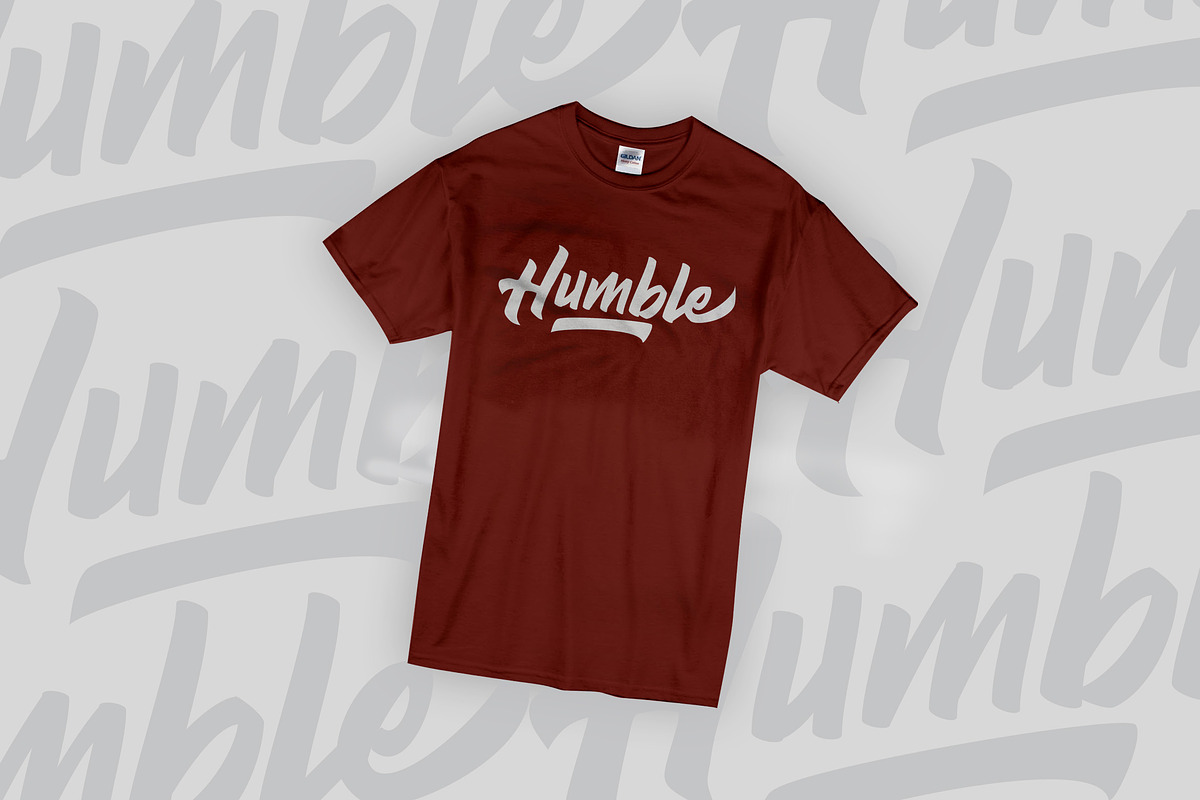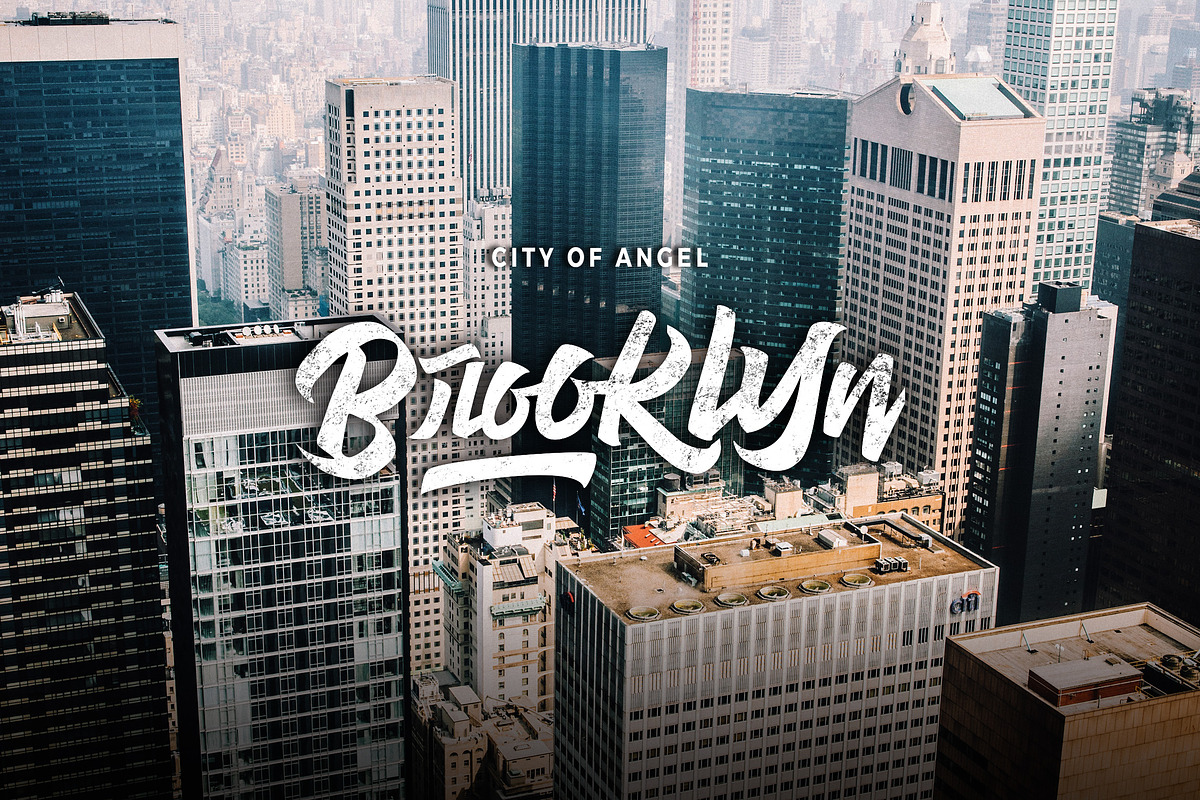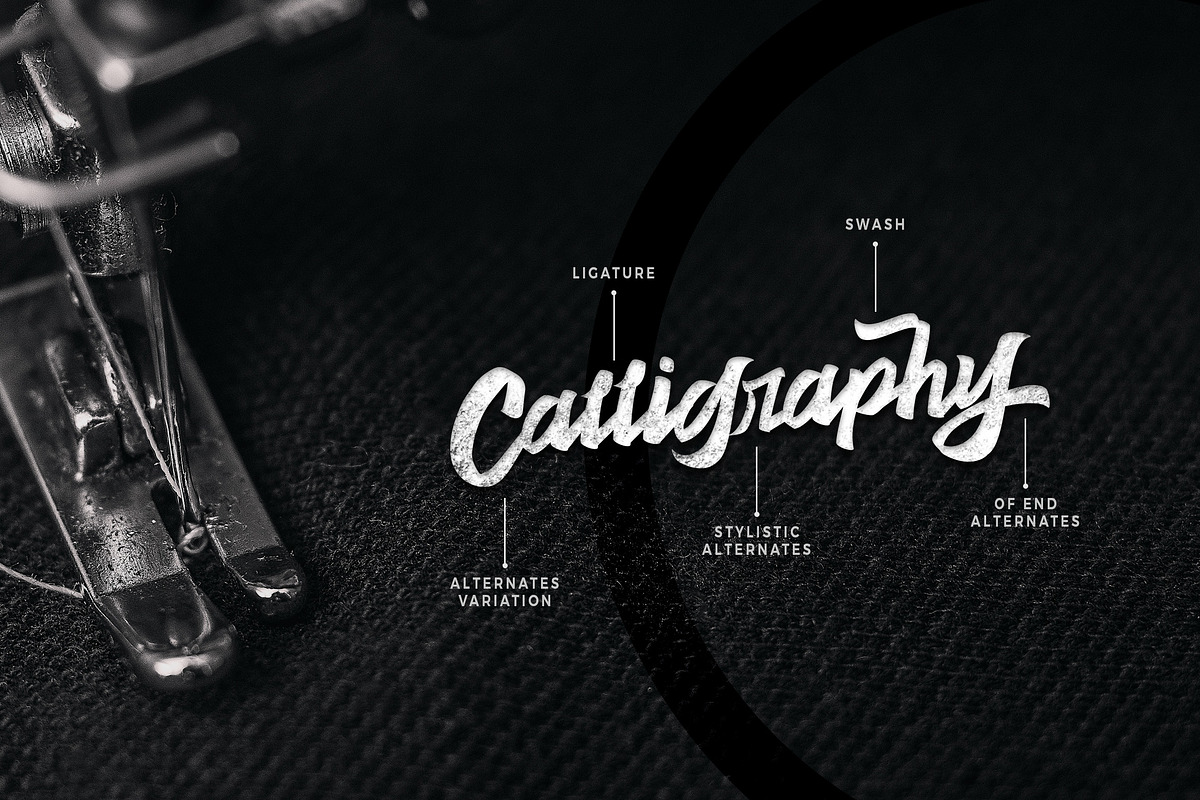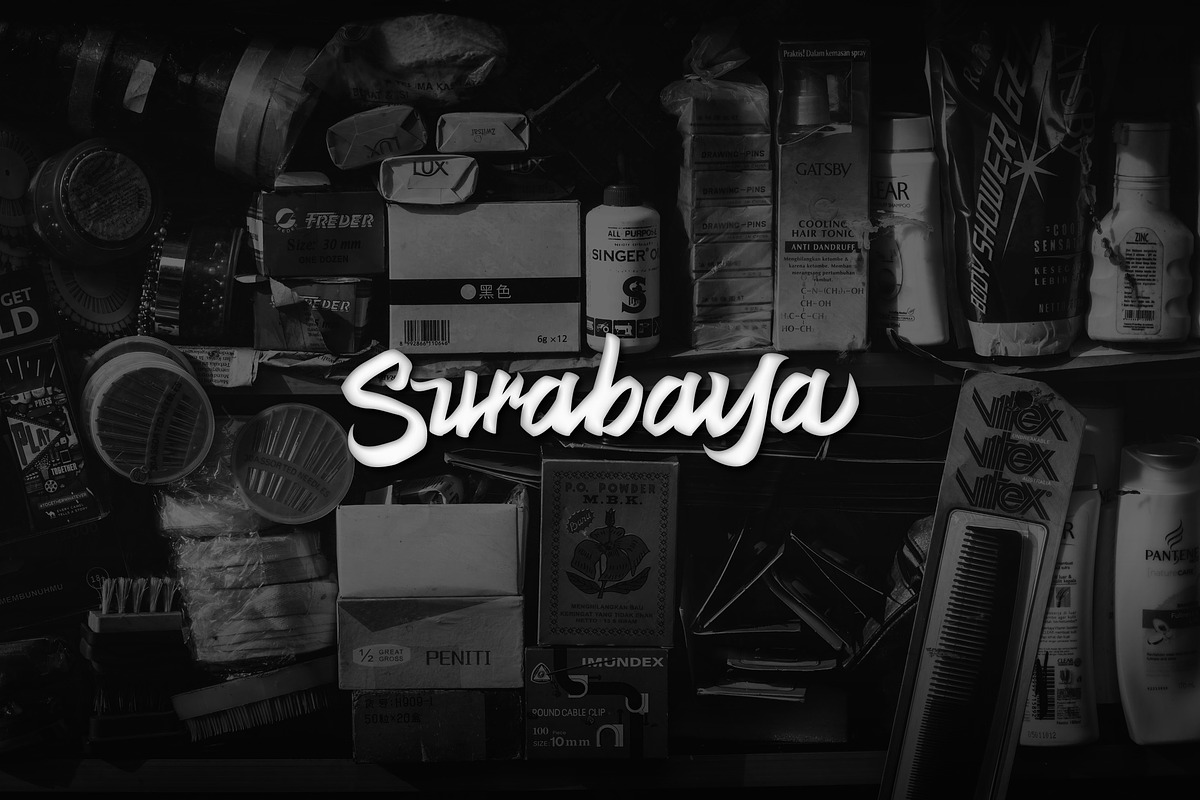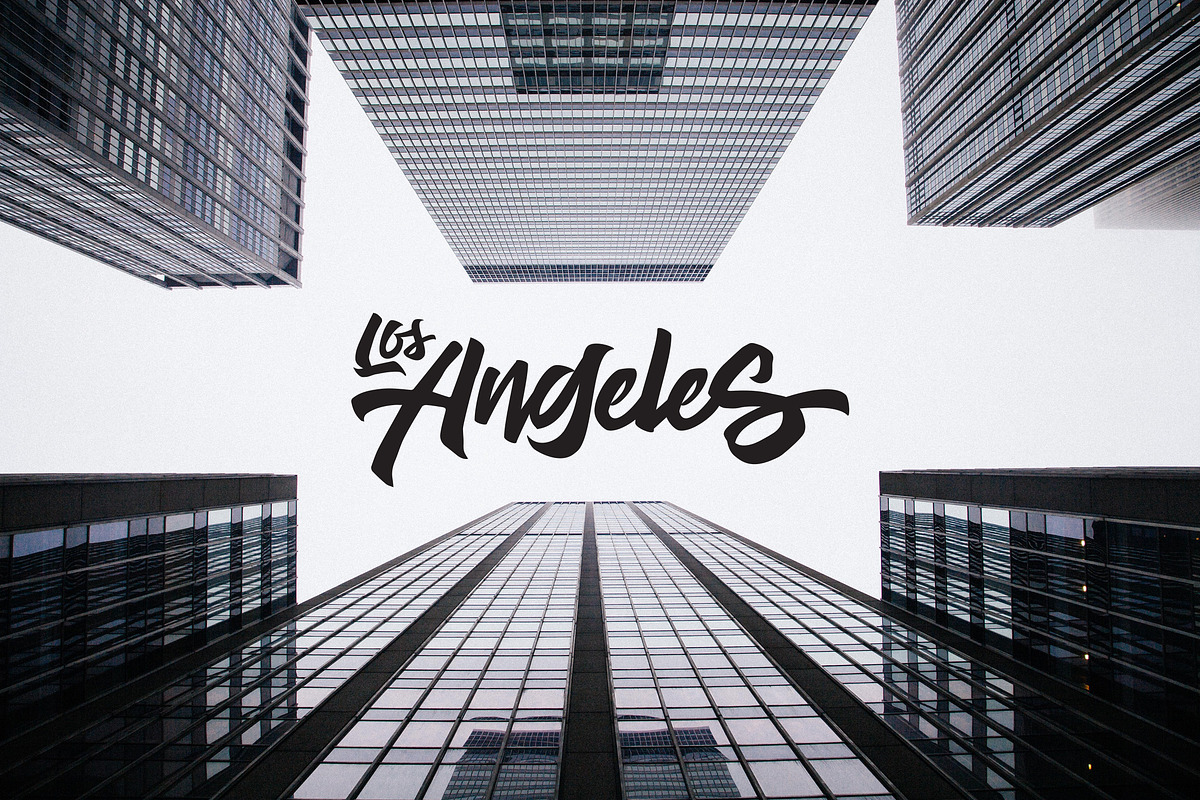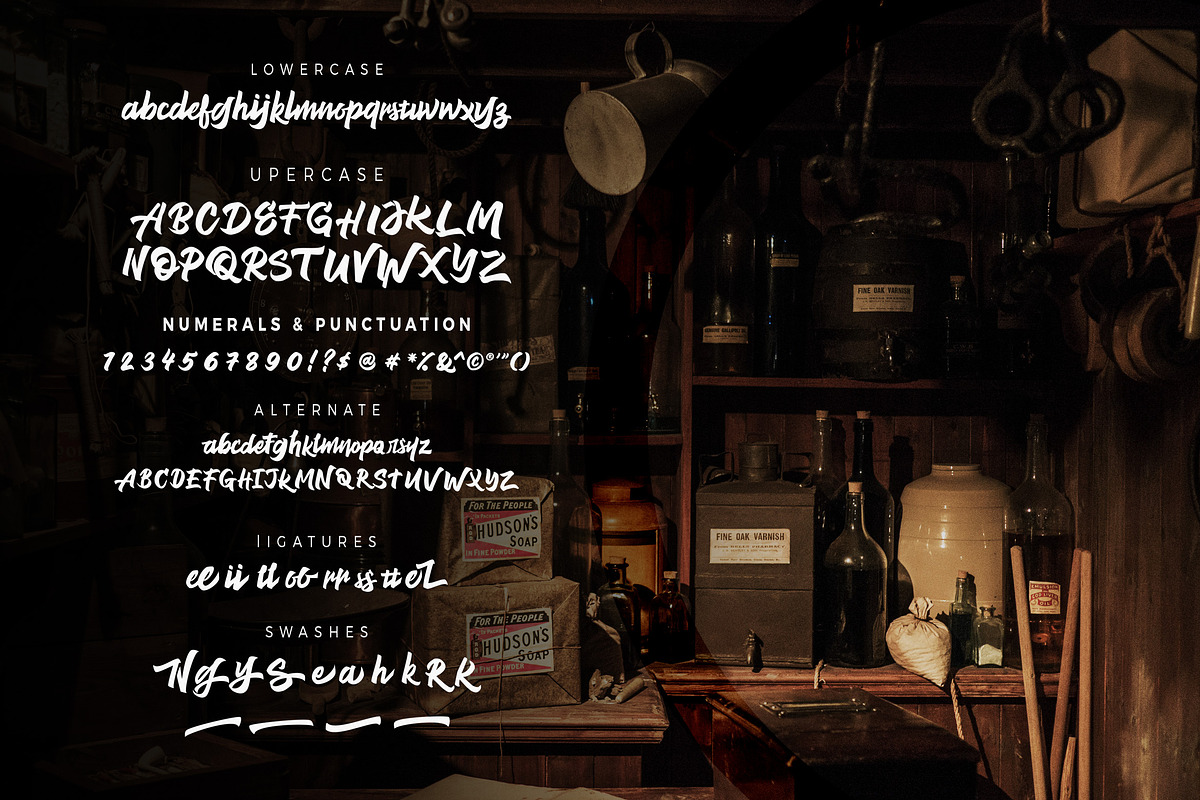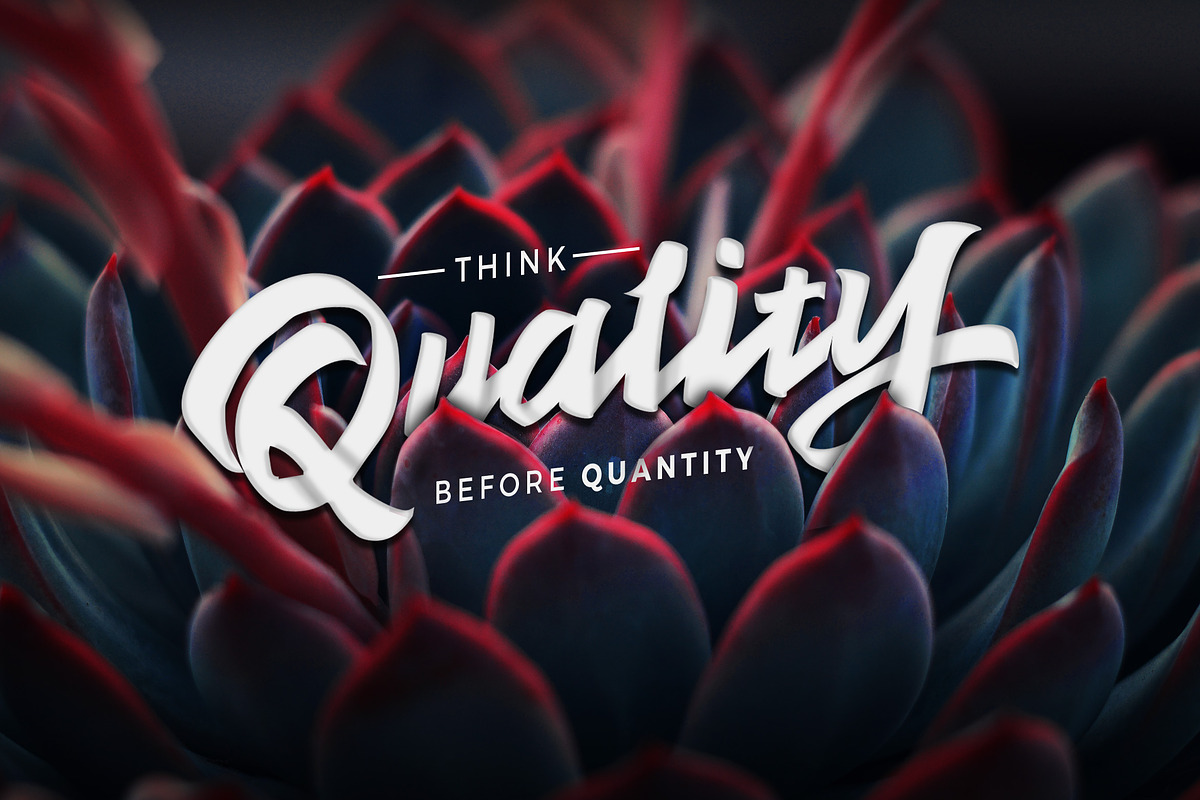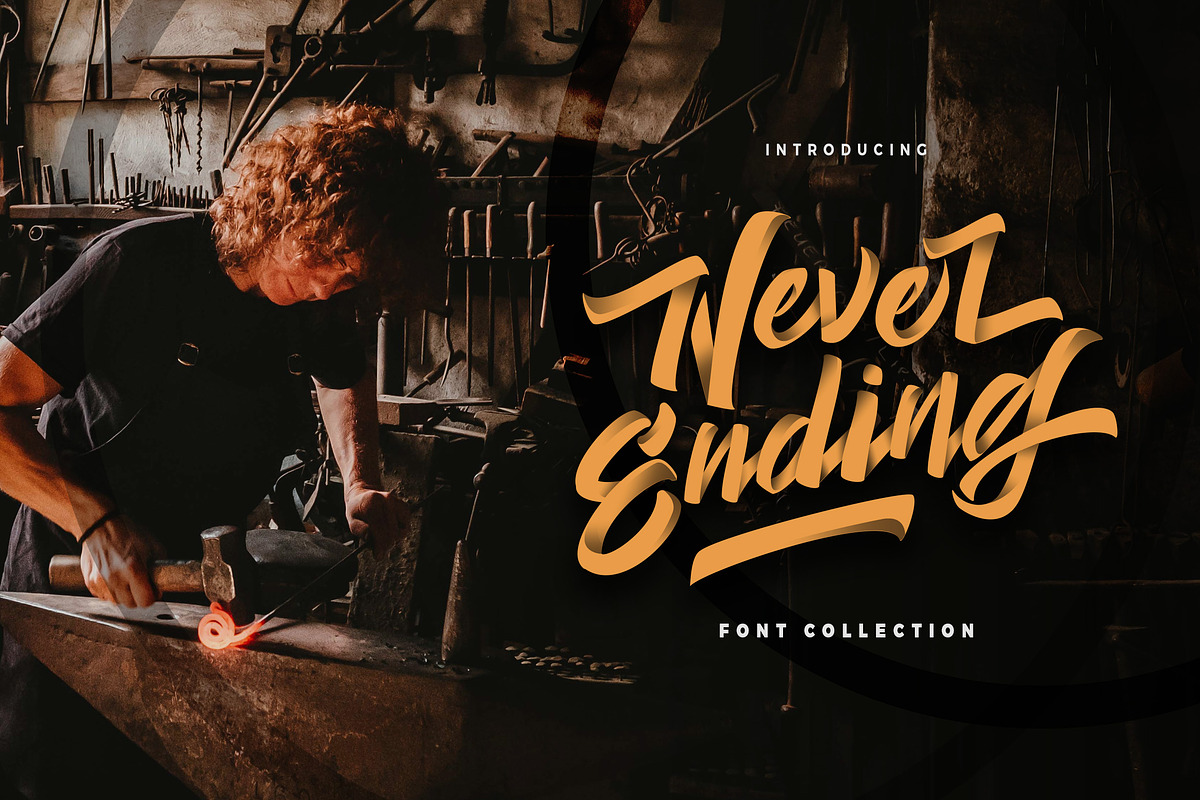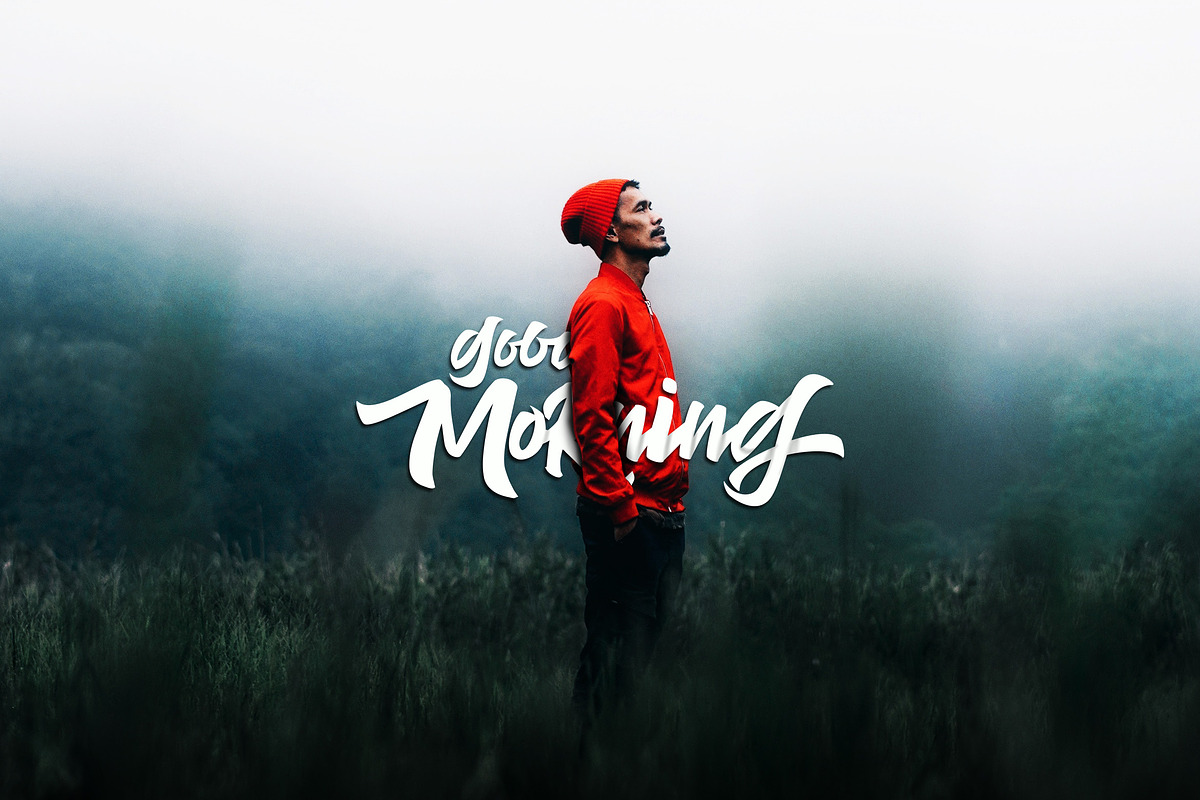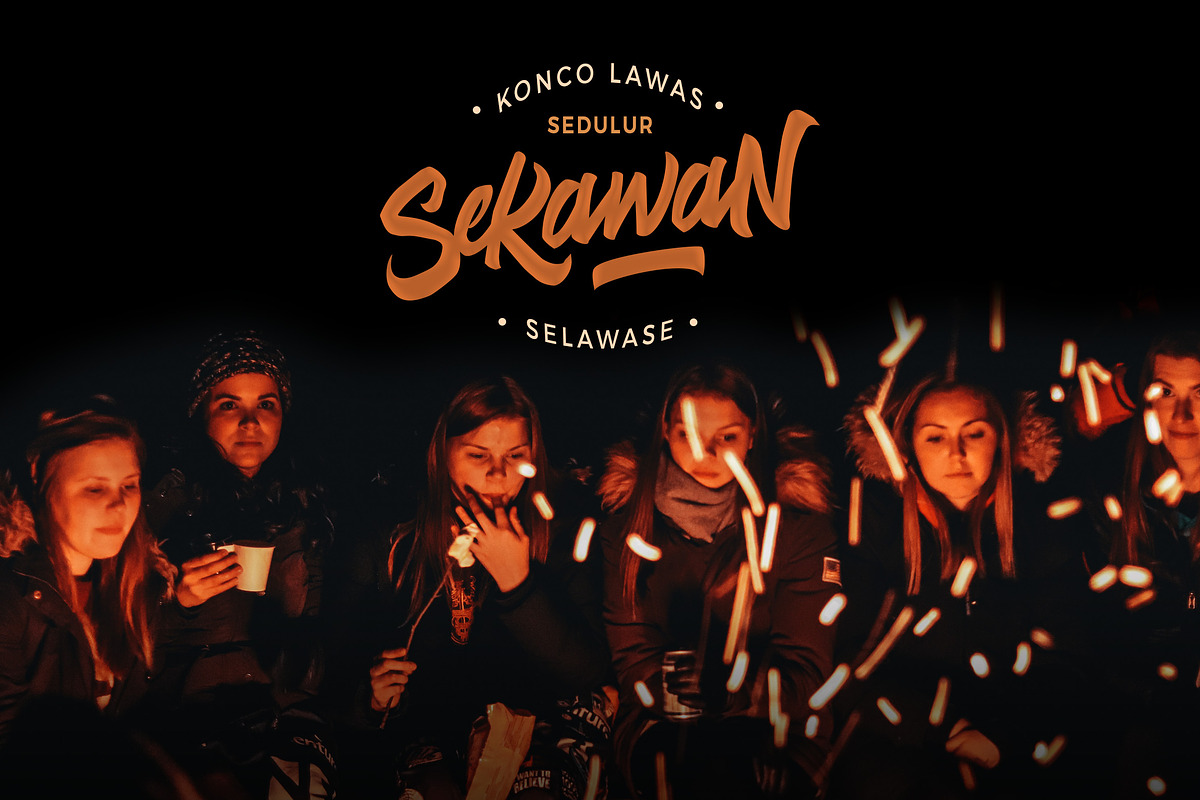
Never Ending - Vintage Script
"Never Ending" is a font display is made by hand, inspired by classic posters.
comes with uppercase, lowercase, numerals, punctuations and so many variations on each character include OpenType alternates, common ligatures and also additional swash to let you customize your designs. Perfect to use for Logotype, Letterhead, Poster, Apparel Design, Label and etc.
OPENTYPE FEATURES
- Contextual Alternates
- All Alternates